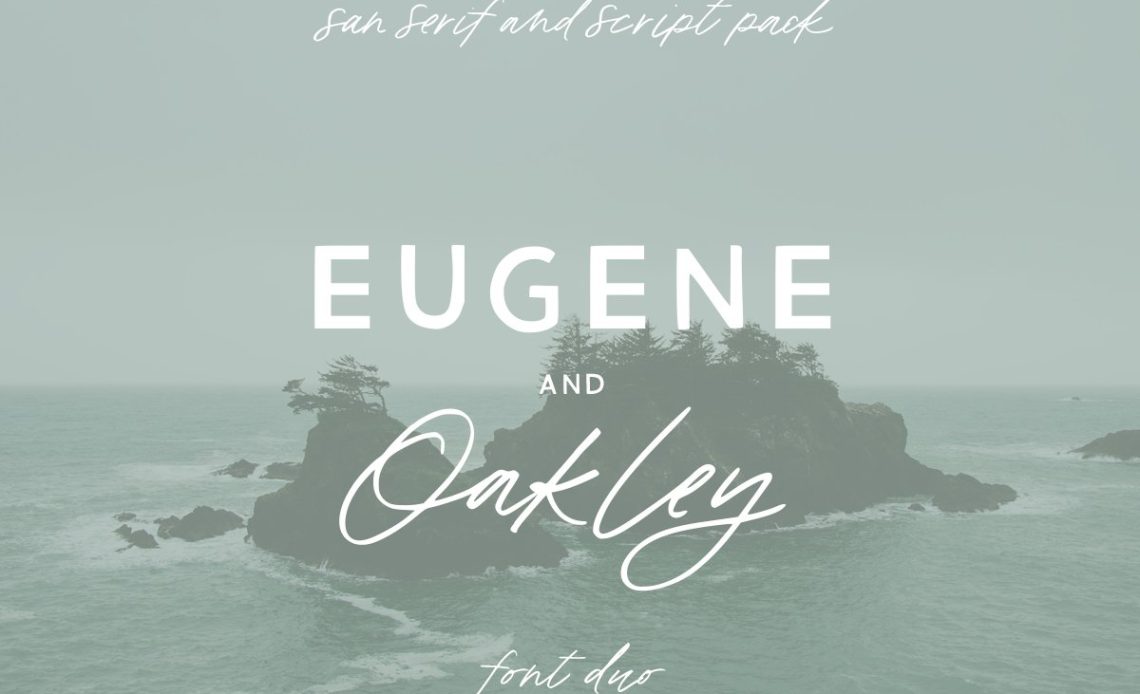
Looking for a font duo that's both tough and tender? Look no further than Eugene and Oakley Font Duo! Created by the talented Margot Groner, these fonts pair a hand-drawn marker script with a legible sans serif to create a look that's both unique and familiar.
Whether you're creating a logo with a hand-drawn feel or looking to add a personal touch to your social media quotes, Eugene and Oakley are the perfect choice. With their rough edges and flowing curves, they strike the perfect balance between rugged and refined.